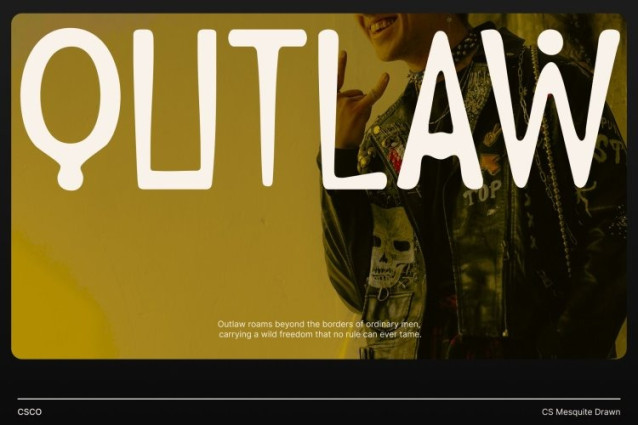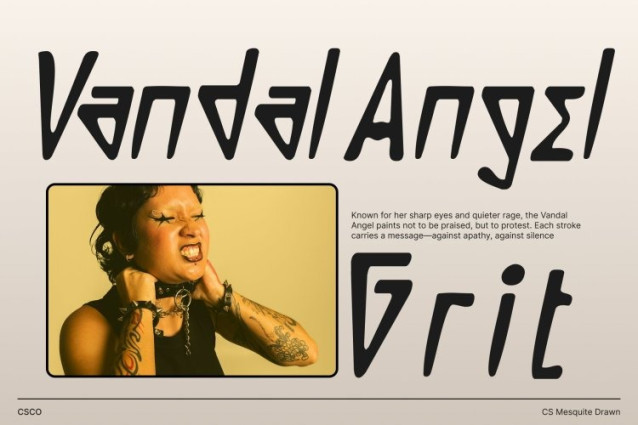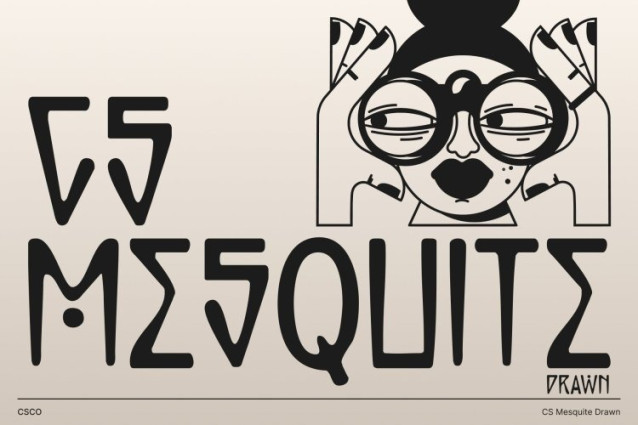
CS Mesquite Drawn Font
CS Mesquite Drawn Font This is an Ancient Greek–inspired display font that captures the spirit of a bygone era through its unique, historically influenced shapes. Each character reflects the beauty of ancient inscriptions, delivering a sense of authenticity and timeless depth. Its distinctive form makes it perfect for designers seeking a classical yet artistic typographic voice.
Hand-Drawn Texture for Raw, Historical Character
Enhancing its ancient-inspired structure, features a drawn effect that introduces irregular, handcrafted texture. This organic detailing mimics the imperfections of carved stone or weathered manuscripts, giving the font an expressive, tactile identity. The result is a typeface that feels raw, artistic, and deeply rooted in historical aesthetics.
Perfect for Editorials and Narrative-Driven Design
This font works exceptionally well in editorial layouts that explore history, mythology, culture, or storytelling themes. Its ancient essence adds dramatic visual weight to titles, subheadings, and feature spreads, creating an atmosphere rich with heritage and depth. Designers can use it to emphasize narrative tone and elevate thematic expression.
Timeless Appeal for Branding and Creative Projects
Whether used in branding, packaging, posters, or thematic displays, brings a timeless and unforgettable presence. Its combination of ancient Greek structure and organic drawn texture makes it ideal for projects that aim to feel classic, enduring, and artistically unique.